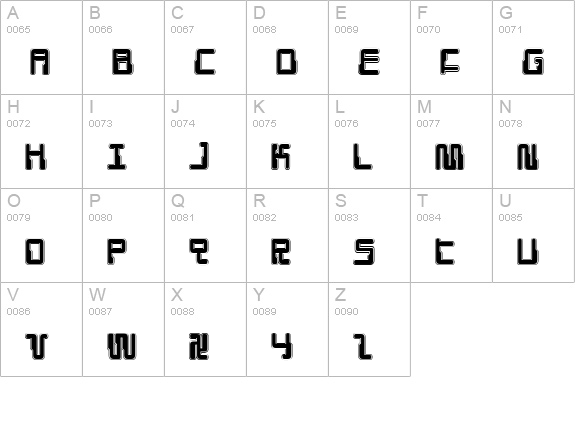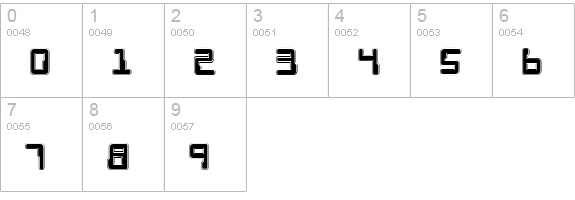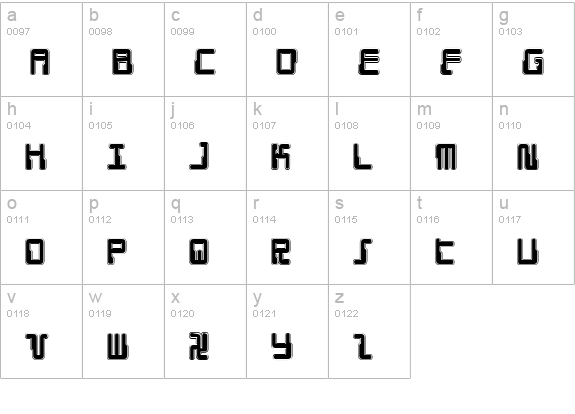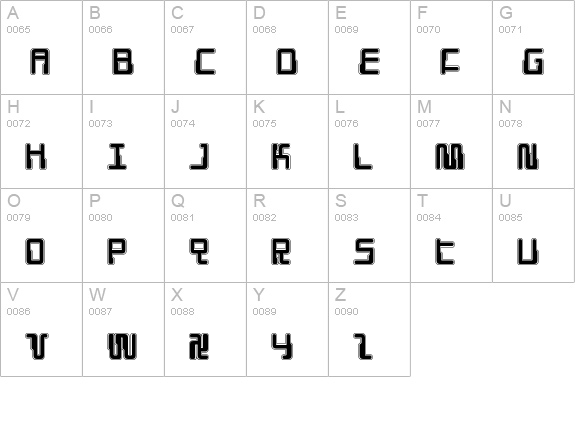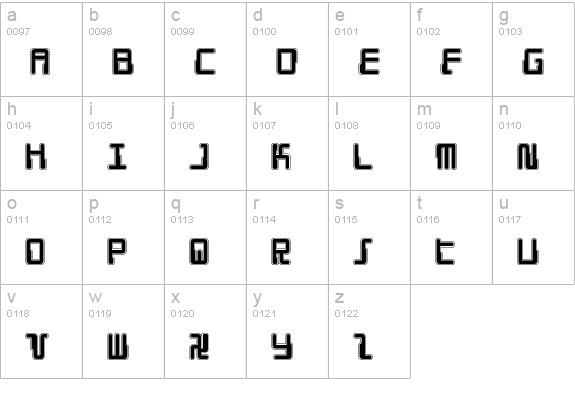
Droid Lover Pro font is a sleek and modern typeface designed for those who have a passion for all things robotic and futuristic. With its clean lines and geometric shapes, this font exudes a sense of technology and innovation. The Droid Lover Pro font is perfect for adding a high-tech touch to your designs, whether you're creating a logo, branding materials, or website graphics. Best of all, Droid Lover Pro font is available for free download at FontsMarket.com. Simply head over to the website and start using this amazing font in your projects today. So why wait? Embrace the future with Droid Lover Pro font and take your designs to the next level.